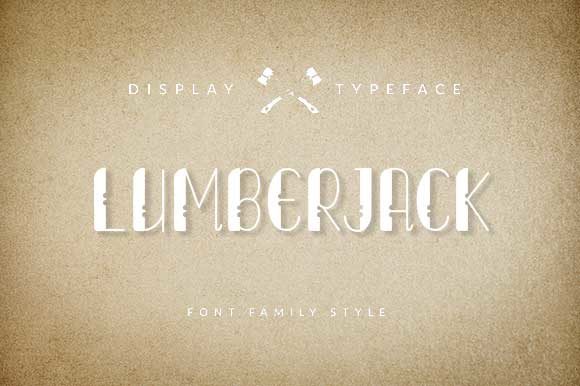
Lumberjack Font
Lumberjack Font is perfect for outdoor adventure brands, rustic cabin signage, camping gear packaging, craft brewery labels, wilderness lodge branding, and rugged outdoor apparel designs. Its bold character makes it ideal for hunting and fishing companies, mountain resorts, adventure sports equipment, forestry services, and any project requiring authentic outdoor masculine appeal and frontier spirit.
This font is exciting because it embodies the raw strength and untamed wilderness spirit of North American frontier culture while delivering exceptional legibility and modern functionality. The sturdy letterforms evoke images of towering forests, crackling campfires, and honest hard work, creating powerful emotional connections that resonate with audiences seeking authentic outdoor experiences and adventure lifestyle branding.
The Lumberjack Font family typically includes Regular, Bold, and Distressed variations, often featuring decorative elements like wood grain textures, axe motifs, and wilderness-inspired ornaments. This comprehensive collection provides designers with versatile tools for creating cohesive brand systems that maintain rugged authenticity while offering flexibility for diverse applications and outdoor market positioning.